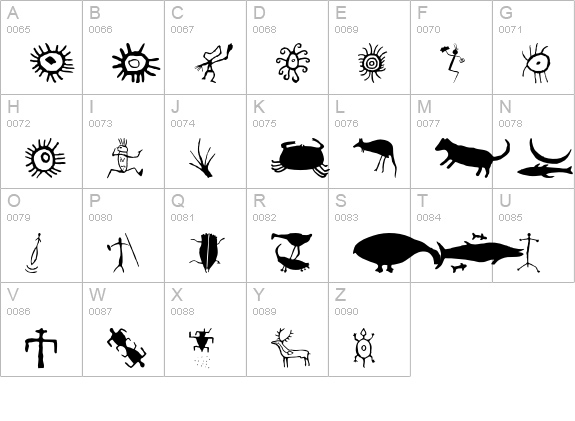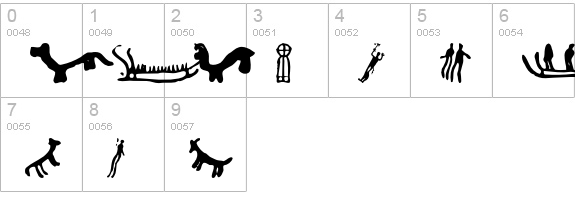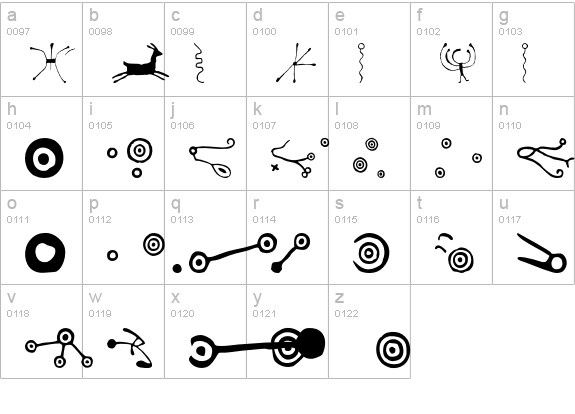
Dreamtime Font Details
Dreamtime font is a whimsical and elegant typeface that combines traditional elements with a modern twist. Its flowing lines and intricate details make it perfect for adding a touch of magic to your designs. Whether you're working on a branding project, invitations, or website design, Dreamtime font will surely captivate your audience. The best part is that Dreamtime font is available for free download at FontsMarket.com. This means you can easily access this stunning font without any cost, making it a valuable addition to your font collection. Don't miss out on the opportunity to bring your creative visions to life with the enchanting Dreamtime font. Download it today and let your imagination soar.